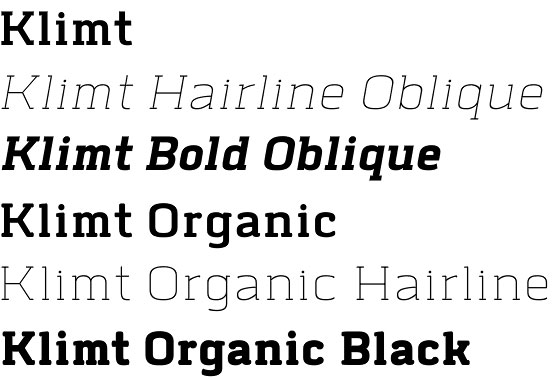
Klimt font
Klimt font is created by the young and very talented Thai graphic designer Chatnarong Jingsuphatada and is published by the Typesketchbook foundry – a new typeface focused on quality Typography. Klimt typeface is a result of author’s inspiration by the Modern font and his willingness to modify it as well as his search of new ways in the type design.
Klimt font comes in two distinctive options: Original Slab Serif and Organic Slab Serif. The Original one offers more geometric lines and forms which give the text quite modern appearance. Organic is based on the Original but adds more human like elements to it, making the lines curvier and offering extra bit of individual taste to the text. The result is awesome – the two fonts, while originating from a same structural stem, provide different and unique look and feeling to the text. This is achieved by using one more distinguishing mark of Klimt font – the Ball terminal at the upper curves of some letters.